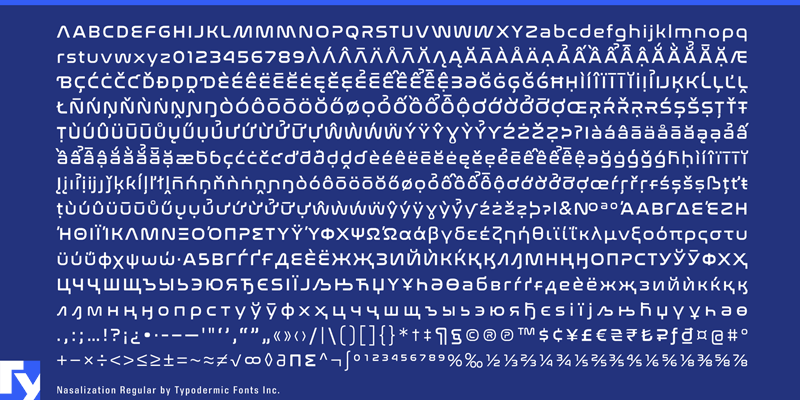
Font name: | Nasalization |
Nasalization is an ultramodern sans serif typeface with a nod to the 1975 Nasa logo. In OpenType savvy applications, a slanted M and W will automatically flip or straighten out depending on neighboring characters. You can use the OpenType stylistic alternates feature to add a crossbar to the A. Nasalization is available in 6 weights and italics. The character set includes Greek, extended Cyrillic and covers almost every Latin based language. This font includes a license that allows free commercial use: sometimes referred to as a desktop license. This allows you to install the font on a computer and use it to create posters, web graphics, game graphics, t-shirts, videos, signs, logos and more. Read the license agreement for details. If you'd like to embed this font in an app, ebook, on the web or anything that's not covered by the desktop license agreement, visit the link below. You'll find distributors who offer different types of licenses or you can contact me for help. http://typodermicfonts.com/nasalization/ This free font is part of a larger font family. Check out the rest of the family through the link above. |